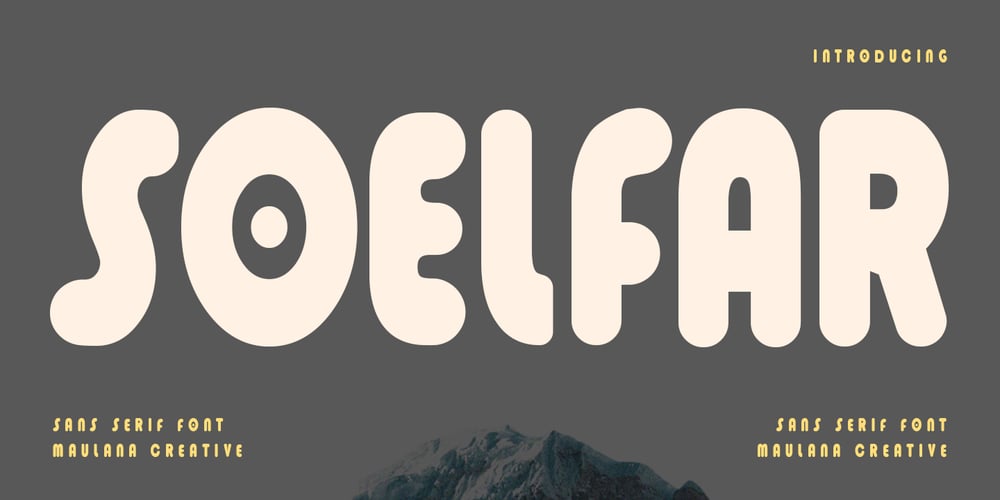
MC Soelfar Font Family was designed by Gilang Maulana and published by Maulana Creative. MC Soelfar contains 1 styles and family package options. Soelfar is a rounded sans serif display font. Bold stroke, fun character with a bit of ligatures. To give you an extra creative work. Soelfar font support multilingual more than 100+ language. This font is good for logo design, Social media, Movie Titles, Books Titles, a short text even a long text letter and good for your secondary text font with script or serif. Make a stunning work with Soelfar font. Cheers, Maulana Creative